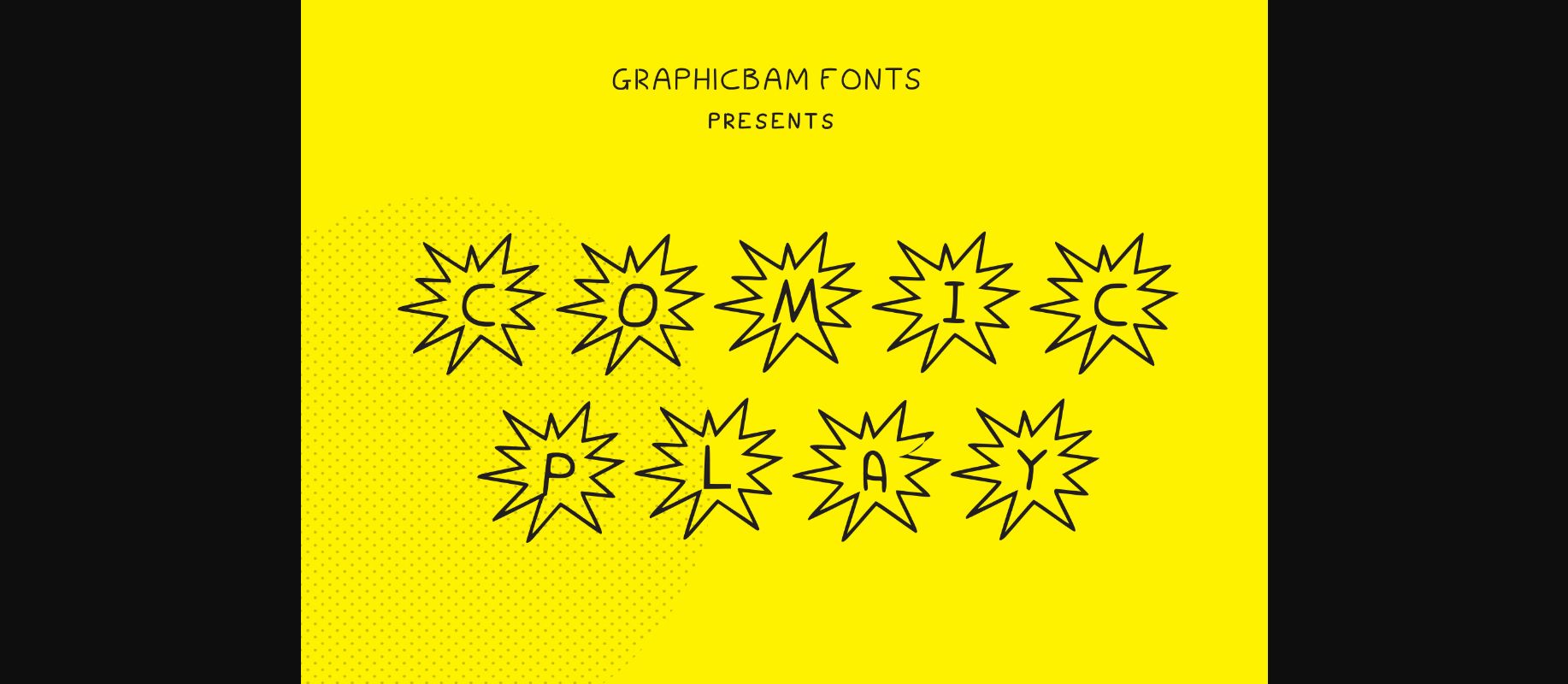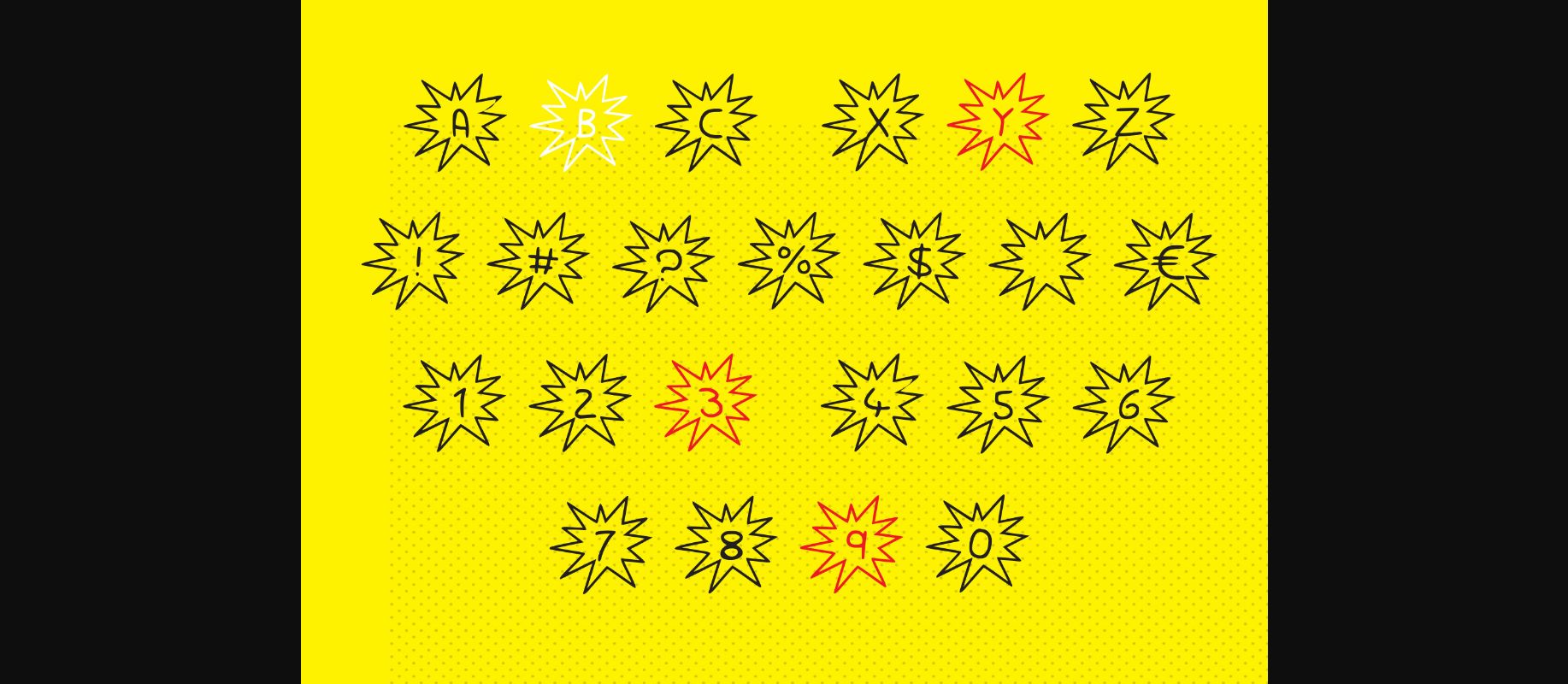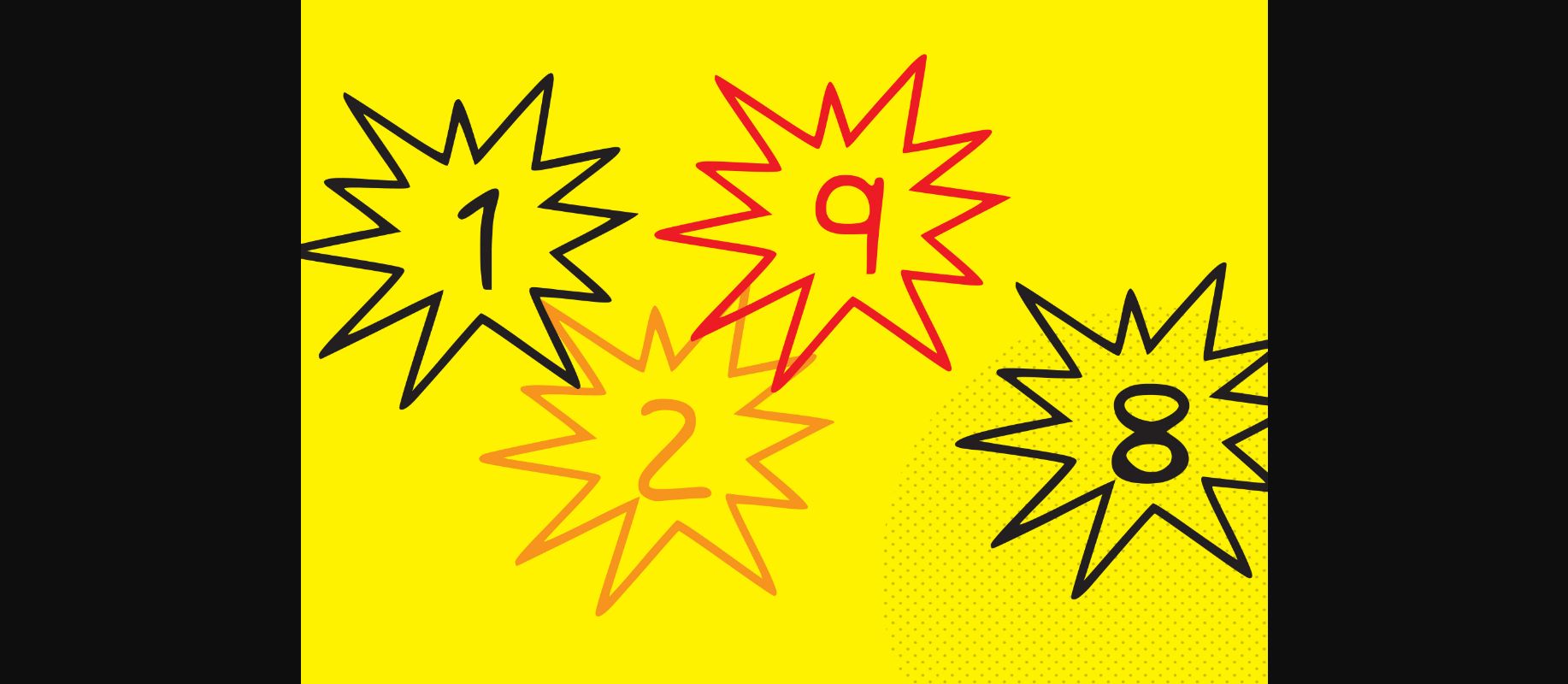
Comic Play Font
About Comic Play Font
Comic Play is a cool, retro styled decorative font. Whether you are using it for cartoon-related designs, children games, quotes, titles, brand names, book covers, posters, or just any creation that requires a touch of joy, this font is a great choice.